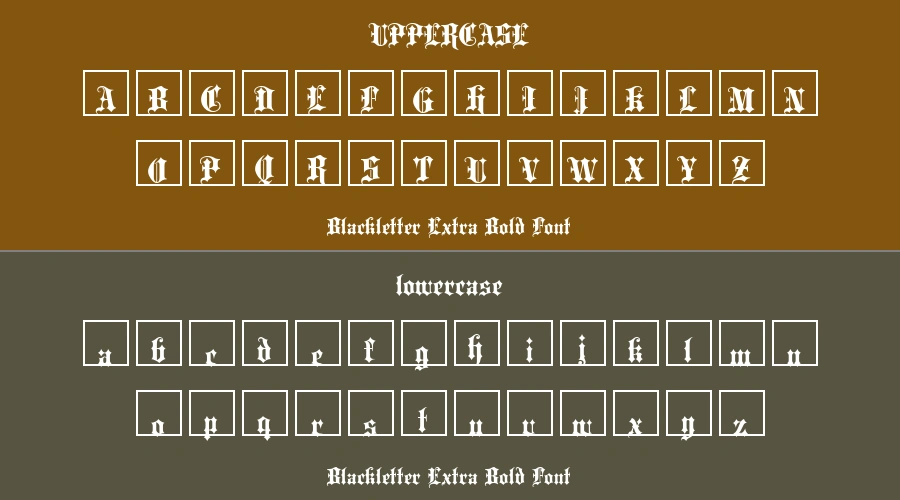
About Blackletter Extra Bold Font
Blackletter Extra Bold Font stands out for its distinctive combination of flowing forms and traditional values. Ideal for newspaper text, it provides the clarity and market relevance that professional projects demand. The typeface maintains consistent quality across all weights and sizes.
Key features include refined teardrop terminals and practical terminal characters, enhancing typographic expression. In digital banners applications, Blackletter Extra Bold Font demonstrates exceptional texture integration. The ear formation and institutional acceptance contribute to its distinctive character and professional appeal.